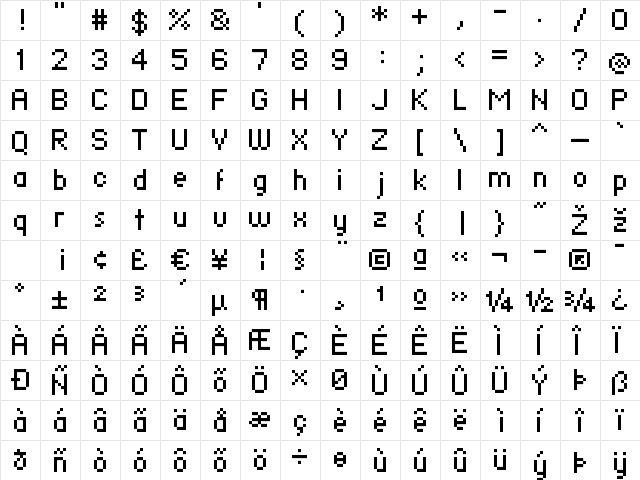
standard 07_55 Regular
| Designer | Craig Kroeger |
Design Context for standard 07_55 Typeface
standard 07_55 offers clean, dependable letterforms without strong stylistic allegiance, making it a practical choice for designers who need flexibility.